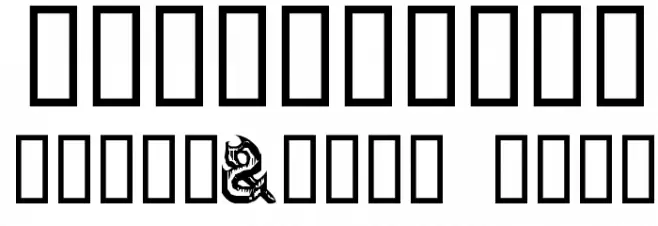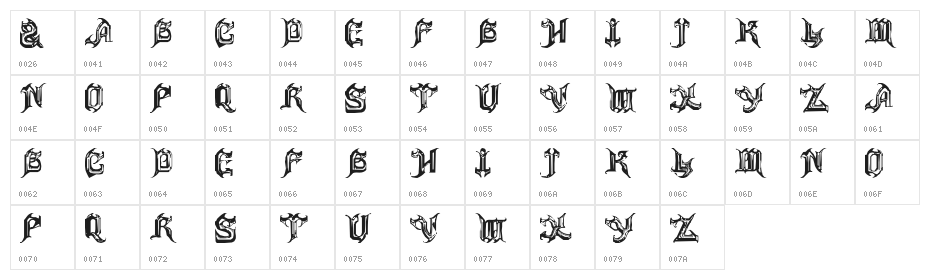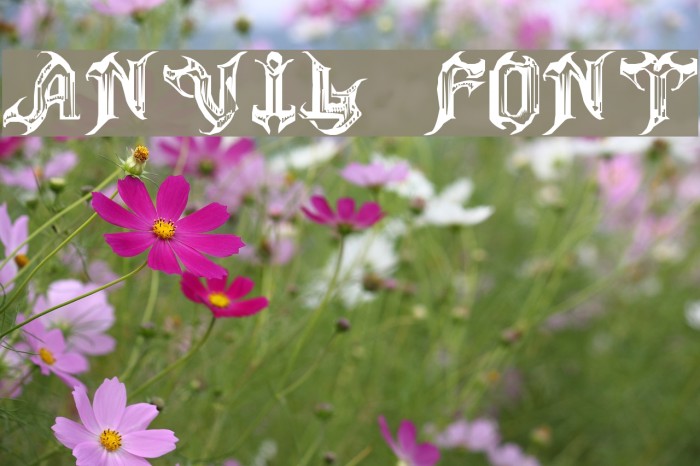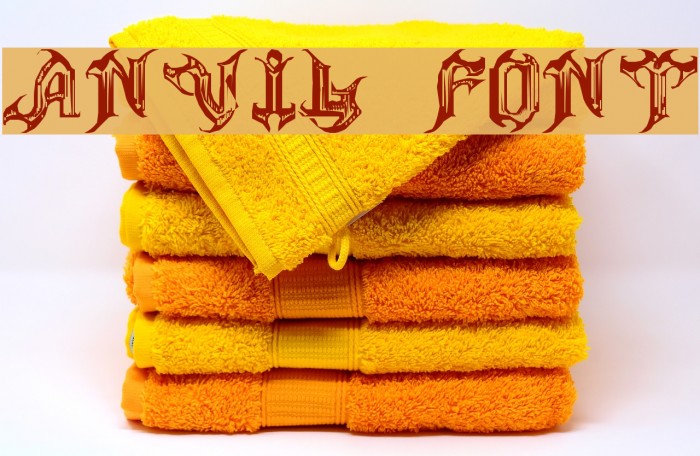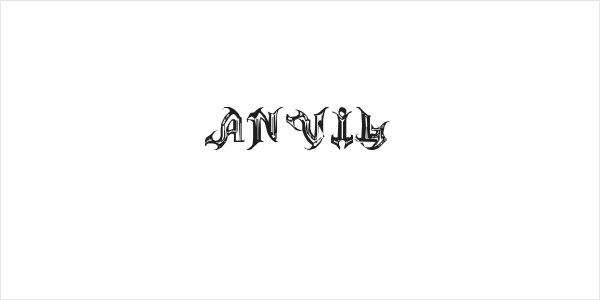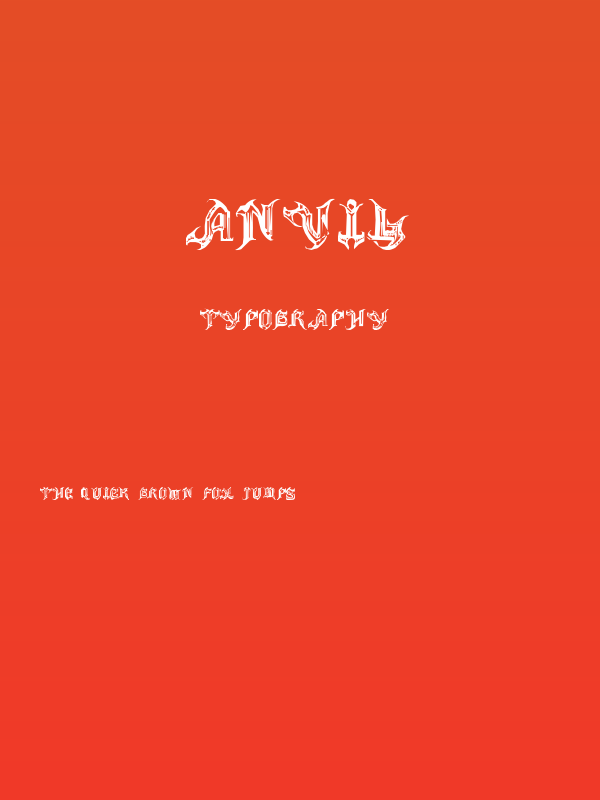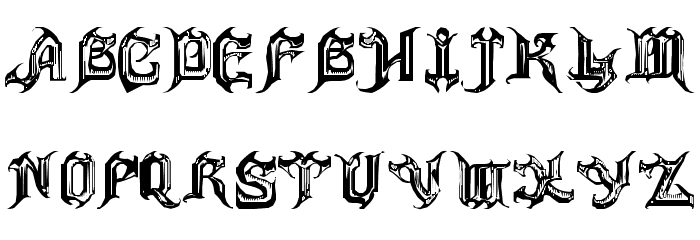
ANVIL Font
ANVIL Description
This font features a bold and intricate design with a strong Gothic influence, characterized by sharp, angular lines and ornate detailing. The uppercase letters are particularly elaborate, with decorative elements that give a sense of historical or medieval flair. The lowercase letters maintain the same stylistic elements, ensuring consistency throughout the typeface. The numbers are designed with a similar level of detail, making them stand out with their unique, boxy appearance. Special characters are also included, matching the overall aesthetic with their bold and decorative style. This font is ideal for projects that require a dramatic and eye-catching typeface.
Fonts by Greg Smith
| Proposed Projects | Suitable for use in posters, logos, book covers, or any project requiring a dramatic and historical feel. |